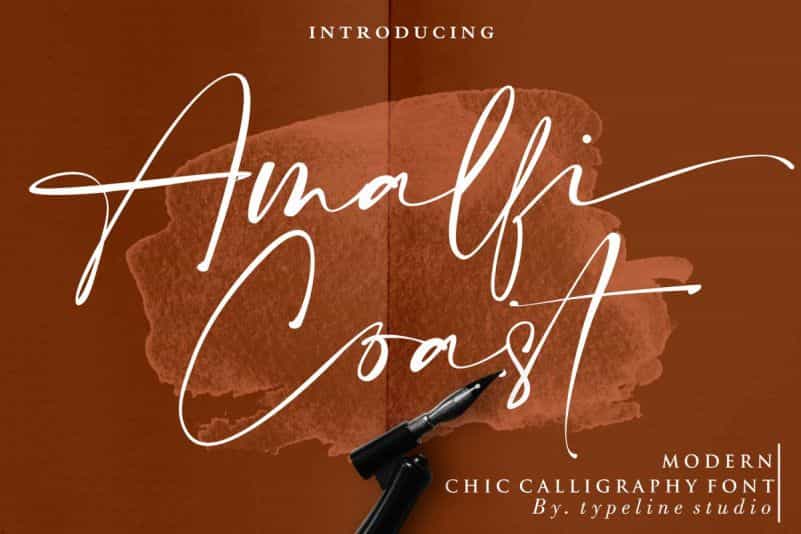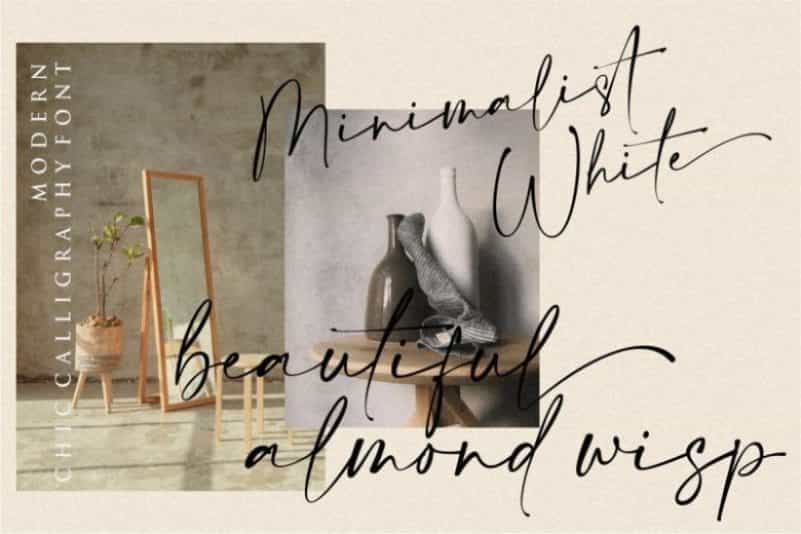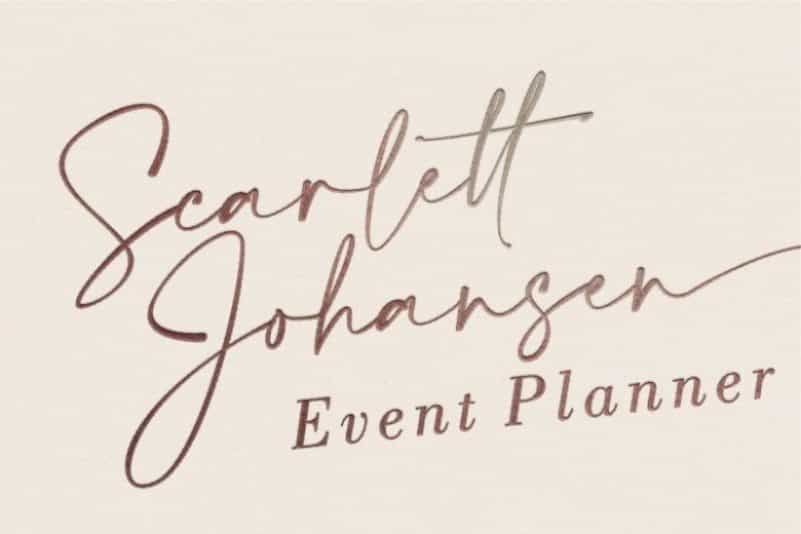
Introducing Amalfi Coast Font! This is sweet calligraphy font, including Regular, and it is a perfect choice for books, posters, invitations, certificates, headlines and other designs requiring a friendly, elegant and soft style. Can be used for different aims. These scripts are perfect for personal branding. It is designed and shared by tapeline studio.